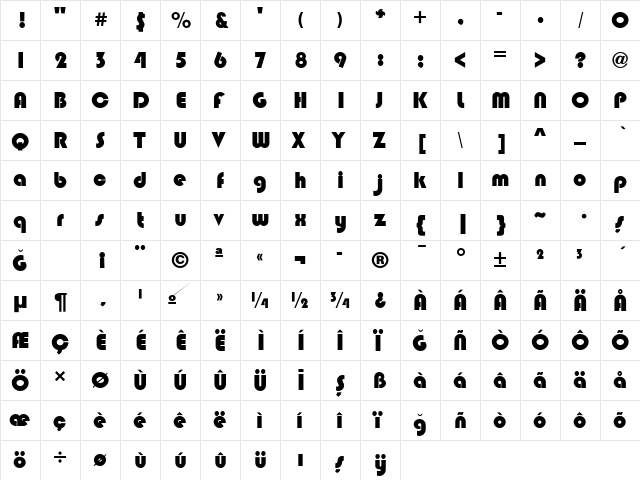
Blippo Heavy
Design Context for Blippo Typeface
Blippo is a composed and adaptable typeface that performs quietly and consistently across a wide range of design contexts.